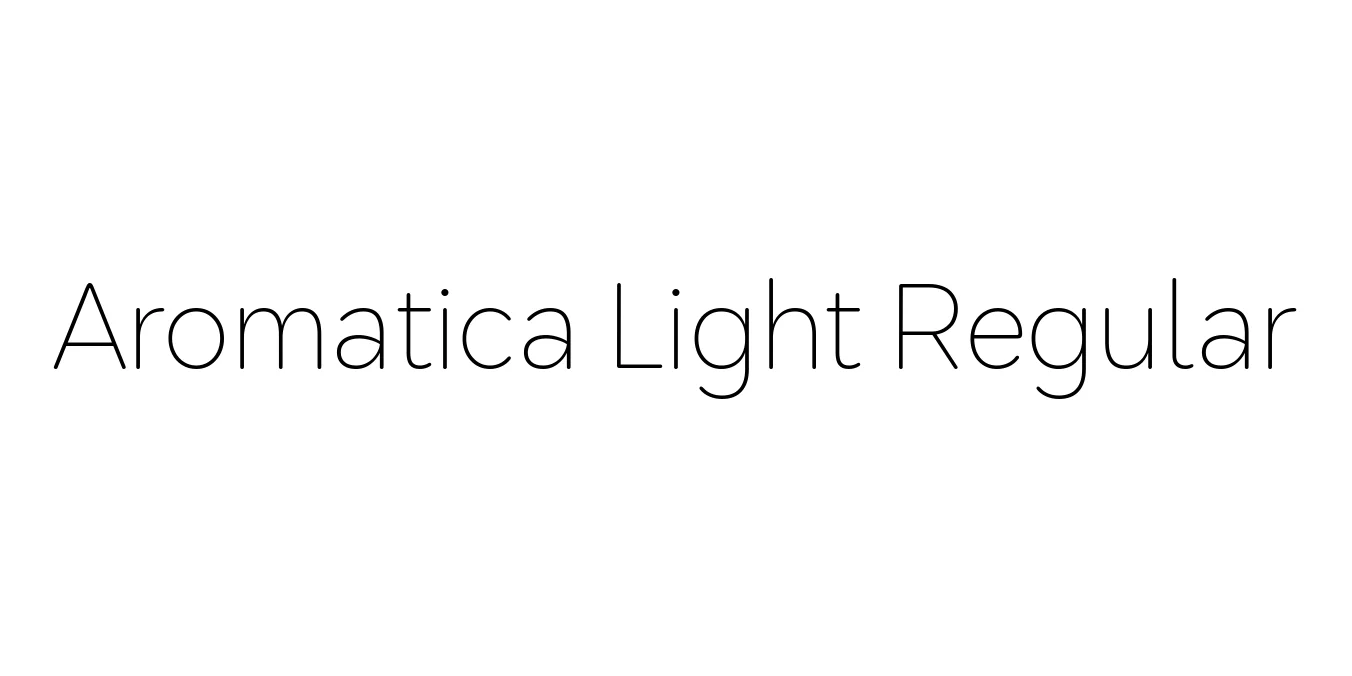
Aromatica Light Regular
Designed by Sofia Mohr
Aromatica Light Regular is a contemporary rounded sans-serif typeface designed by Sofia Mohr and published by Latinotype. Inspired by the soft, organic shapes found in botanical elements and culinary herbs, this typeface features smooth terminals and a balanced structure. The Light weight specifically provides an elegant and airy aesthetic that is both modern and highly readable, making it a favorite for designers seeking a gentle yet professional look.
Since its release, the Aromatica family has gained popularity for its friendly and approachable personality. Its rounded geometry is meticulously crafted to maintain clarity at various sizes, making it exceptionally versatile. Whether used in digital interfaces or high-quality print materials, Aromatica Light Regular conveys a sense of freshness and sustainability, often associated with eco-friendly branding and wellness industries.
Aromatica Light Regular Best Uses
Perfect for organic food labels, skincare products, and sustainable lifestyle brands.
Ideal for clean, friendly mobile app interfaces and minimalist blog headers.
Provides an elegant, airy look for pull-quotes and titles in lifestyle magazines.
Highly effective for health-conscious and artisanal product packaging.